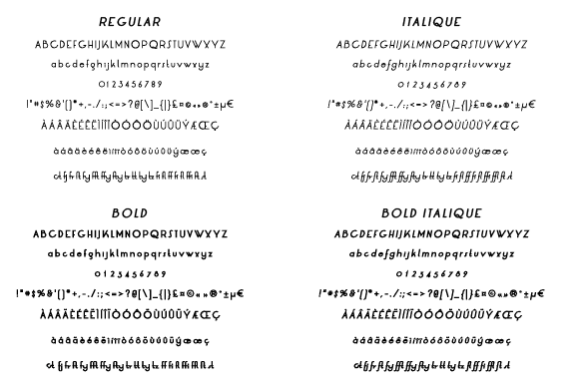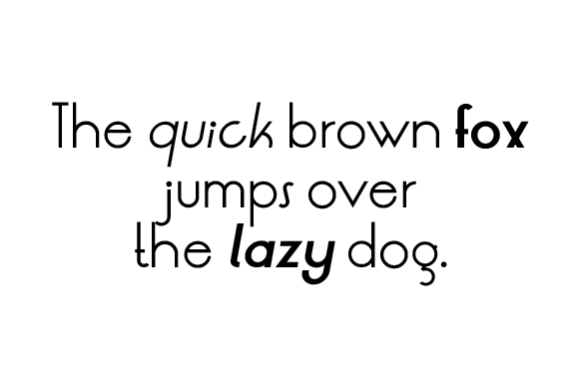
Gislaine Family Font: A Simple yet Modern Choice for Designers and Crafters
In the world of typography, the right font can make all the difference in the success of a design project. For designers and crafters looking for a font that combines simplicity with modernity, the Gislaine Family Font is an excellent choice. This versatile font has gained popularity for its great readability and adaptability, making it suitable for a wide range of design applications.
What is the Gislaine Family Font?
The Gislaine Family Font is a contemporary typeface designed to cater to the needs of modern designers and crafters. Its simplicity is its standout feature, making it easy to read and use in various contexts. The font’s clean lines and uncomplicated structure contribute to its high readability, ensuring that messages are conveyed clearly and effectively.
Key Features of the Gislaine Family Font
- Simplicity: The font’s simple design makes it versatile and easy to integrate into any design project.
- Modernity: Despite its simplicity, the Gislaine Family Font boasts a modern look that appeals to contemporary design sensibilities.
- Readability: One of the font’s most significant advantages is its excellent readability, making it suitable for both digital and print media.
- Versatility: The Gislaine Family Font can be used across various platforms and design projects, from branding and advertising to web design and crafting.
Use Cases for the Gislaine Family Font
The Gislaine Family Font’s versatility makes it an excellent choice for a variety of design projects. Here are some use cases where this font truly shines:
- Branding and Logo Design: The font’s modern and simple design makes it perfect for creating logos and brand identities that need to convey a sense of professionalism and approachability.
- Web Design: With the increasing importance of digital presence, the Gislaine Family Font is an excellent choice for web design, offering great readability across various devices and screen sizes.
- Print Design: Whether it’s for brochures, posters, or business cards, this font ensures that your message is communicated clearly and effectively in print.
- Crafting and DIY Projects: For crafters and DIY enthusiasts, the Gislaine Family Font offers a modern and stylish option for creating handmade cards, invitations, and other craft projects.
Why Choose the Gislaine Family Font?
Choosing the right font for a design project can be overwhelming, given the numerous options available. Here are some reasons why the Gislaine Family Font stands out:
- Easy to Read: Its high readability ensures that your message is conveyed effectively to your audience.
- Adaptable: The font’s simplicity and modernity make it adaptable to various design styles and trends.
- Professional Look: The Gislaine Family Font gives your design a professional and contemporary look, making it ideal for businesses and individuals looking to make a strong visual impact.
The Gislaine Family Font is a valuable addition to any designer’s or crafter’s toolkit. Its simplicity, modernity, and great readability make it an excellent choice for a wide range of design projects. Whether you’re working on a branding project, designing a website, or creating handmade crafts, this font offers the versatility and professional look you need to make your project stand out.
With its broad range of applications and benefits, the Gislaine Family Font is more than just a typeface – it’s a design solution that can elevate your work and help you achieve your creative goals.